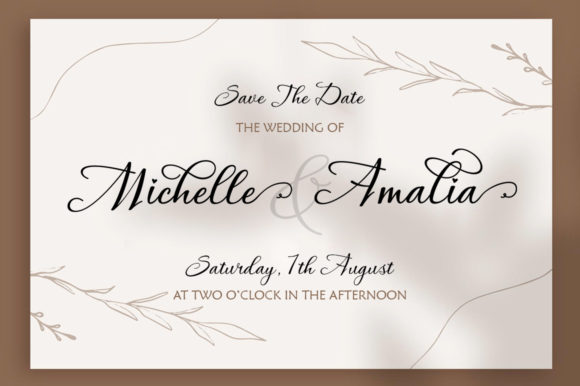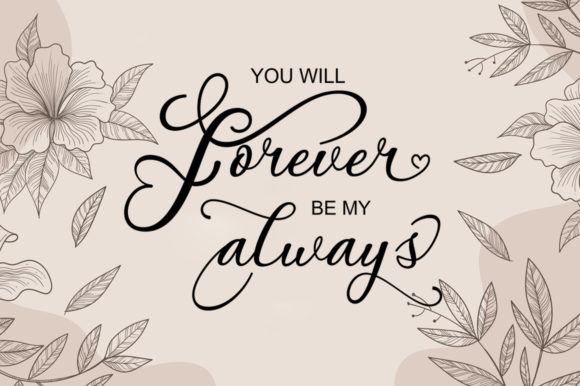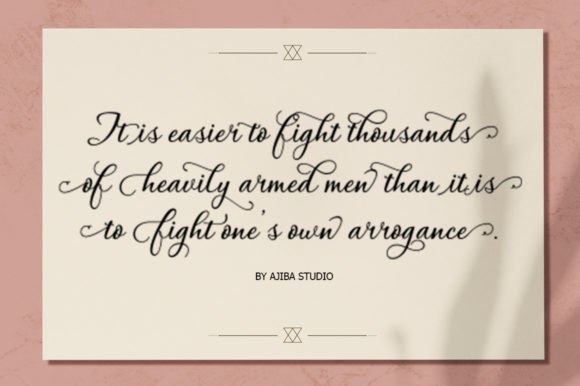
Introduction to Maghina Sript Font
Maghina Sript is a romantic and sweet calligraphy typeface with characters that dance along the baseline.
It will add a luxury spark to any design project that you wish to create This font is PUA encoded which means you can access all of the amazing glyphs and ligatures with ease.